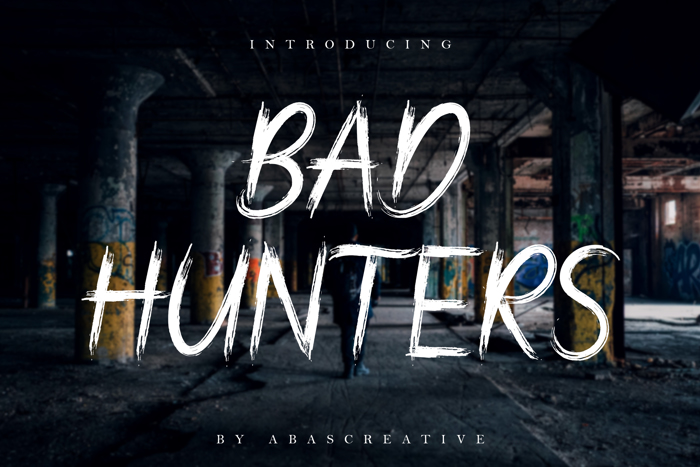
Bad Hunters Font
Bad Hunters is a supercharged, street-wise brush font bursting with energy. With its quick strokes and sharp details, Bad Hunter is guaranteed to deliver an unapologetically loud & fast-paced message!